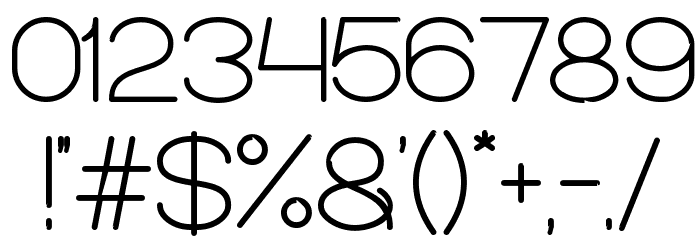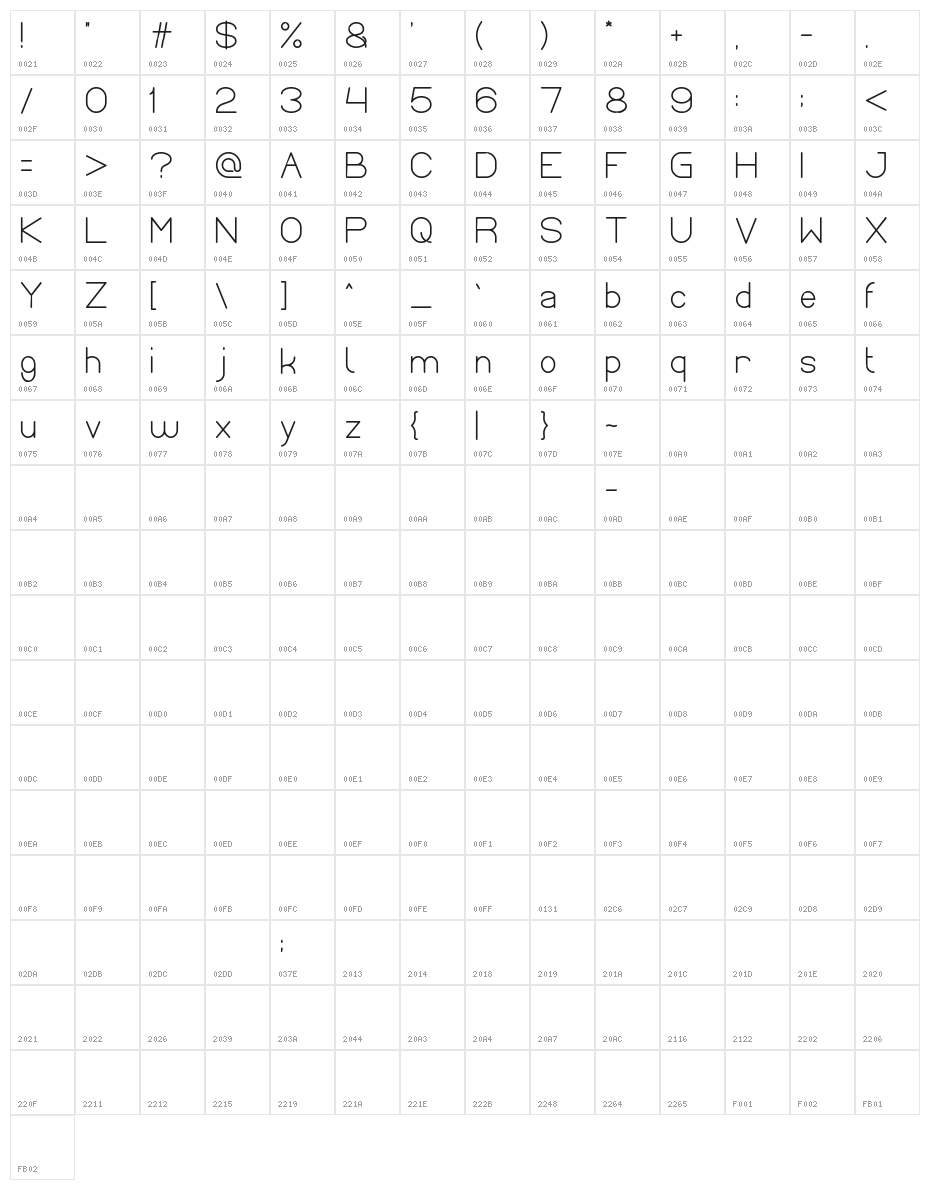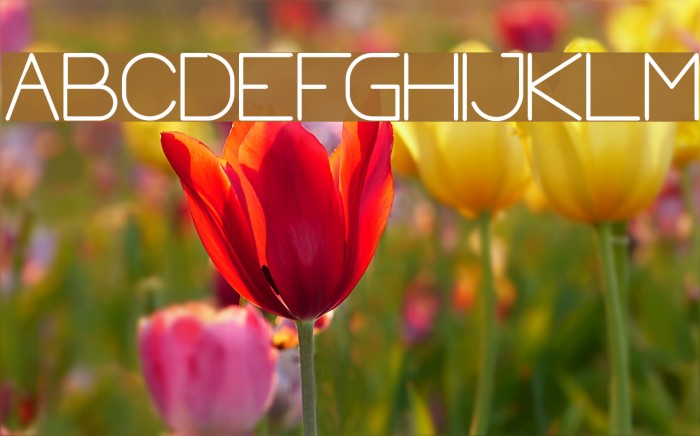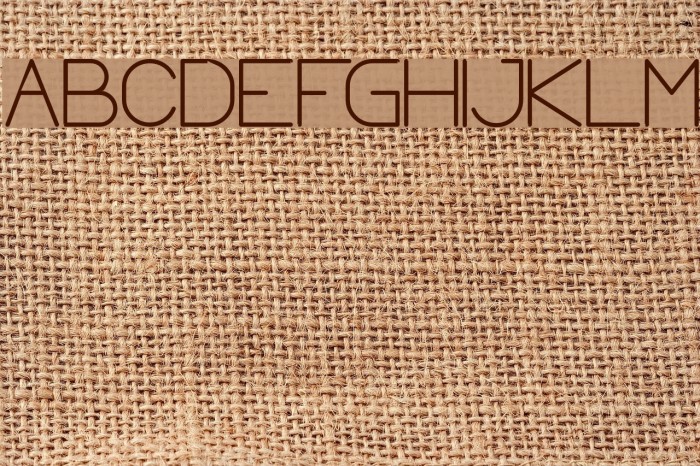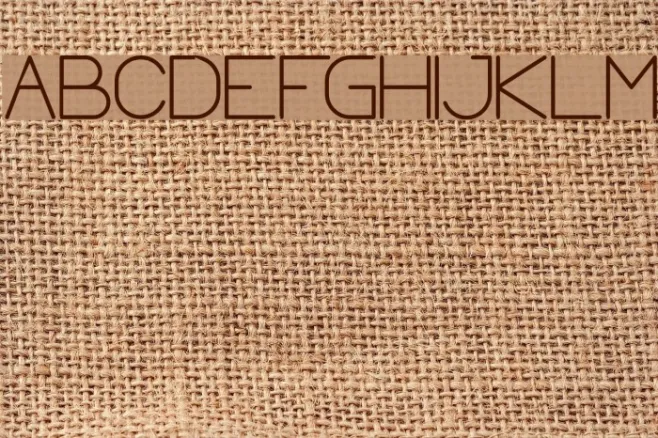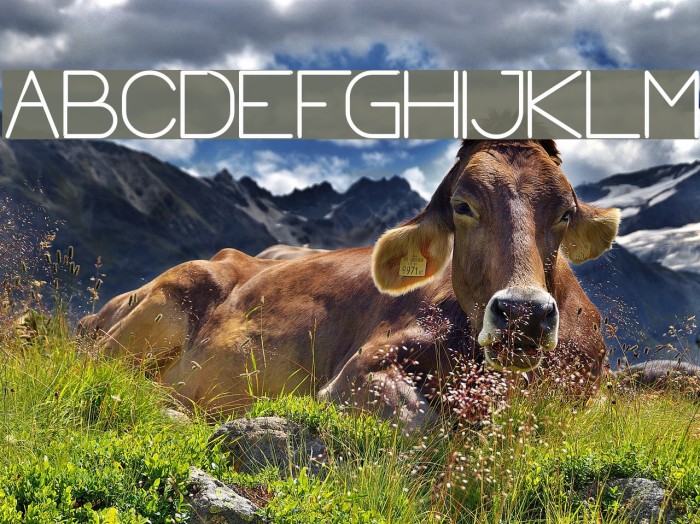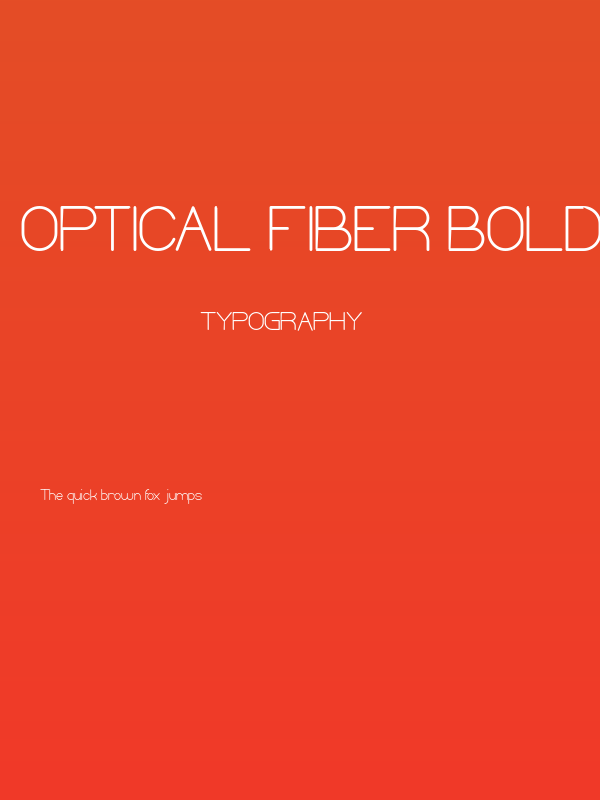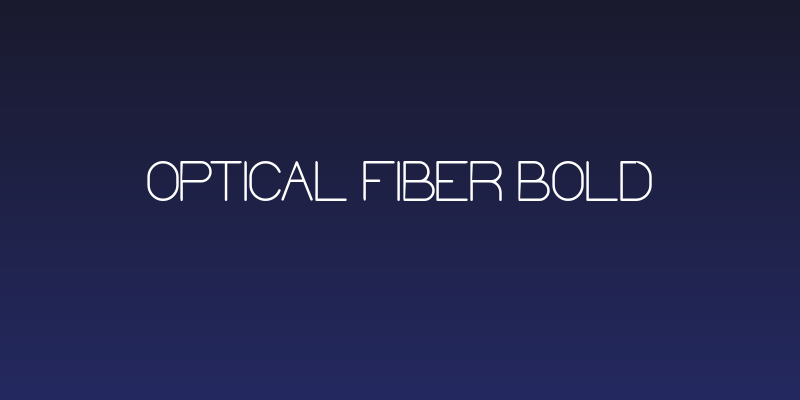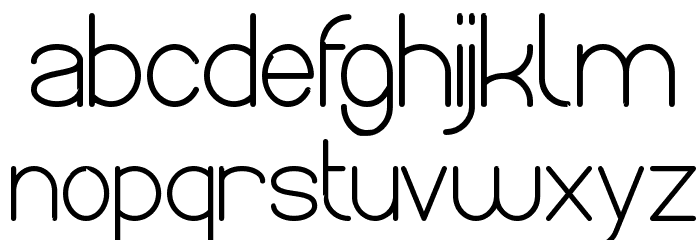
Optical Fiber Bold Font
Optical Fiber Bold Description
This font features a modern, geometric design with clean lines and a minimalist aesthetic. The characters are constructed with uniform stroke widths, giving it a sleek and contemporary look. The uppercase and lowercase letters maintain a consistent style, with rounded edges and a slight futuristic feel. The numerals and special characters are designed to match the overall aesthetic, making it suitable for a variety of applications. Its simplicity and clarity make it highly legible, even at smaller sizes.
Use CaseHeadlines, Logos, Digital interfaces
Proposed ProjectsIdeal for tech branding, modern websites, digital interfaces, and minimalist design projects.